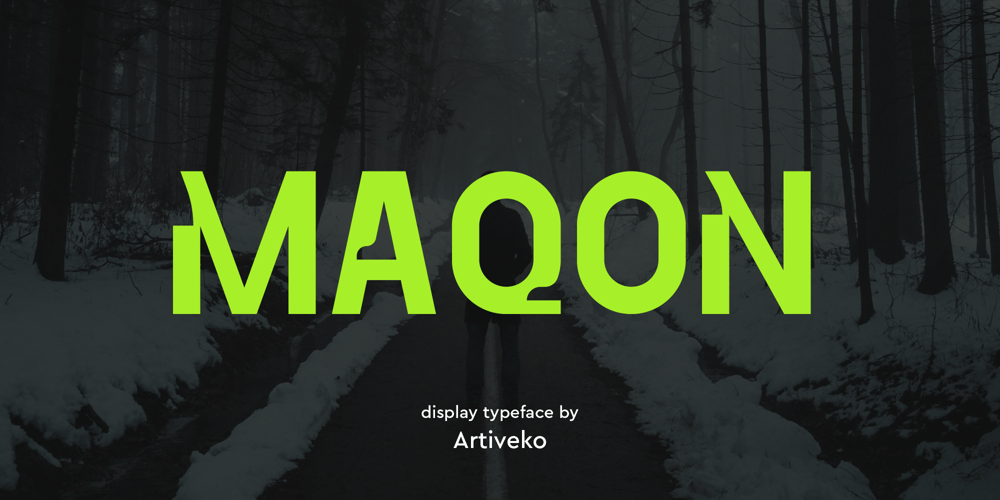
Maqon
Maqon font
Maqon Font Family was designed by Iwan Alwan and published by Artiveko. Maqon contains 2 styles and family package options. Maqon, a groundbreaking sans serif font crafted by Iwan Alwan.Unlike conventional sans serif fonts, Maqon boasts a distinctive and unparalleled design, setting it apart from the ordinary. With its unique shapes and forms, Maqon captivates the eye and adds a touch of innovation to any project it graces.Moreover, its multilingual support ensures versatility and accessibility across a diverse range of languages and cultures. Experience the elegance and versatility of Maqon, where creativity knows no bounds.